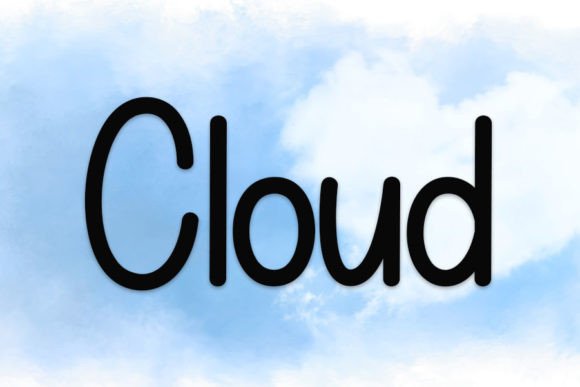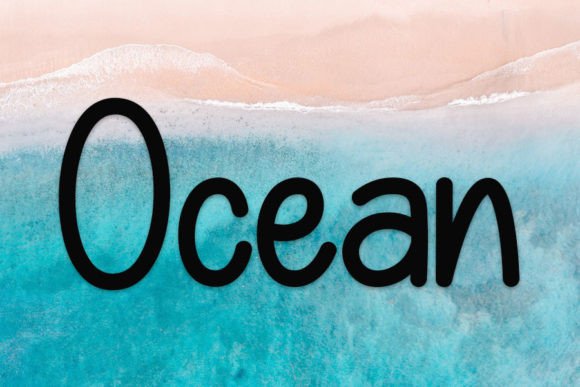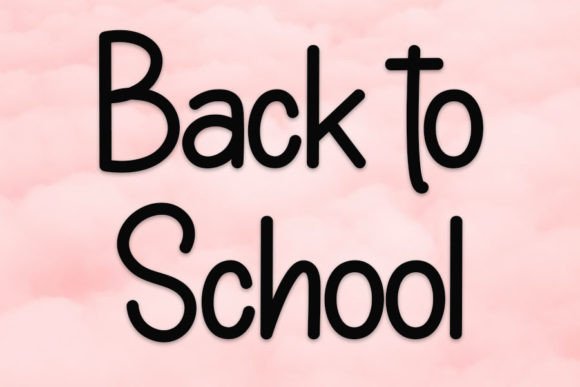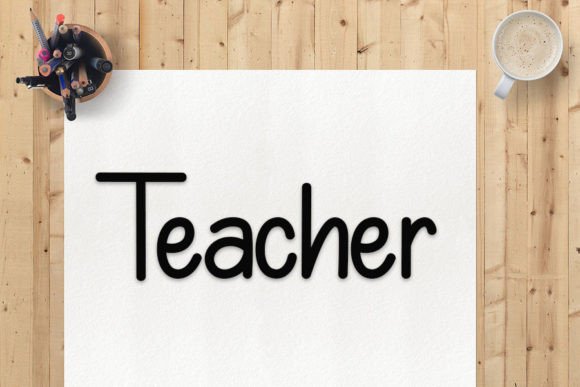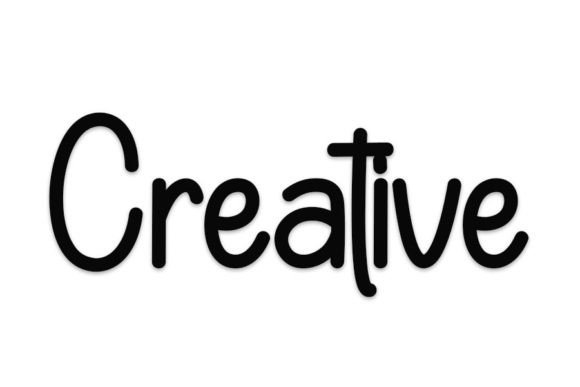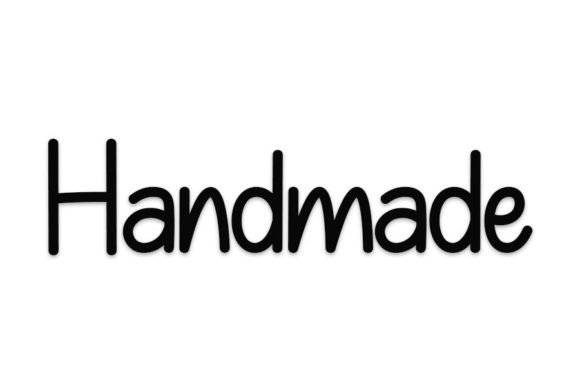
Escape to a World of Endless Creativity
Imagine yourself strolling along a sun-kissed beach, the warm sand beneath your feet, and the sound of waves gently crashing against the shore. As you breathe in the salty air, you’re suddenly inspired by the endless possibilities that the ocean brings. The same feeling can be captured in your designs with the perfect font – one that’s as carefree and elegant as a beach holiday.
Enter the Beach Holiday Font, a beautiful handwritten font that’s perfect for adding a touch of sophistication to your favorite projects. With its unique, timeless style, this font is sure to fall in love with you, just like a summer romance. Whether you’re a seasoned designer or just starting out, the Beach Holiday Font is a valuable addition to your toolkit, offering endless possibilities for creativity and self-expression.
Beach Holiday Font Key Features
- Unique Characteristics: The Beach Holiday Font features a unique, hand-drawn design with a relaxed, beachy feel, perfect for creating a casual and laid-back atmosphere.
Designer Review: Beach Holiday Font
Overall, I’d say the Beach Holiday Font is a solid addition to any designer’s toolkit. ✨ Here are a few things that work well:
- The font’s light and airy feel makes it perfect for travel or summer-themed projects.
- The Beach Holiday Font includes a range of characters, including ligatures and swashes, which can add a nice touch to designs.
- The font is highly customizable, with a range of weights and styles available.
However, there are a few limitations to consider: ⚠️
- The Beach Holiday Font may not be the best choice for serious or formal projects, as its playful feel may detract from the tone you’re trying to convey.
- The font’s characters can be a bit tricky to read at smaller sizes, which may limit its use in certain applications.
Overall, I think the Beach Holiday Font is a great choice for designers who want to add a touch of whimsy to their projects. While it may not be the most versatile font, its unique feel and customization options make it a great addition to any designer’s toolkit.
The Beach Holiday Font is perfect for creating beach-themed designs, such as:
- Beach vacation brochures
- Summer promotional materials
- Beach-themed party invitations
For optimal results, use the Beach Holiday Font in conjunction with bright and colorful graphics and imagery.